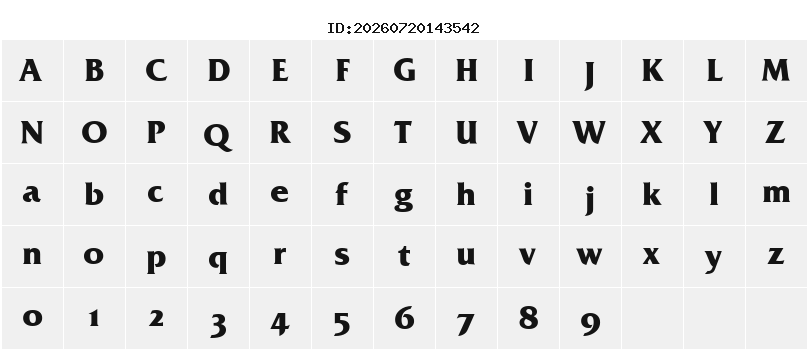
Fremont-Osf Preview
• Font Name: Fremont-Osf
• Designer: SoftMaker Software GmbH
About Fremont-Osf.ttf
Fremont-Osf.ttf is a modern, elegant sans-serif font designed for ultimate readability and visual harmony. Perfect for branding, headlines, web design, and print materials.